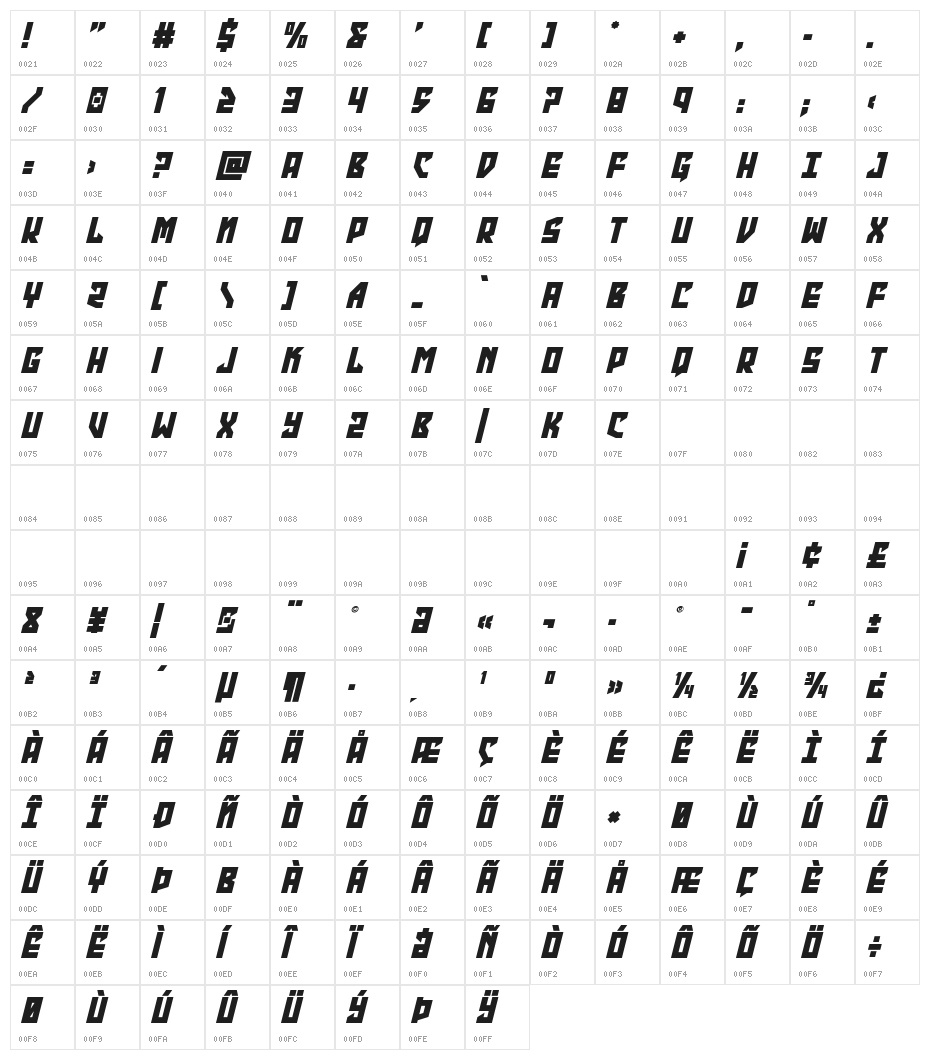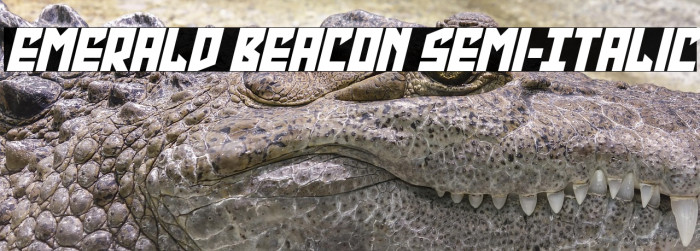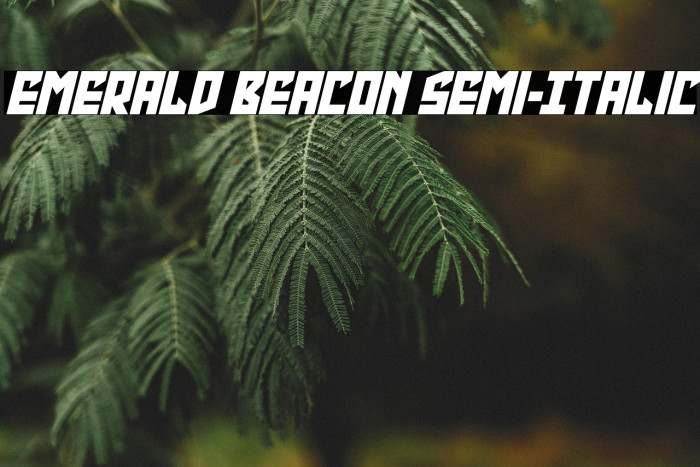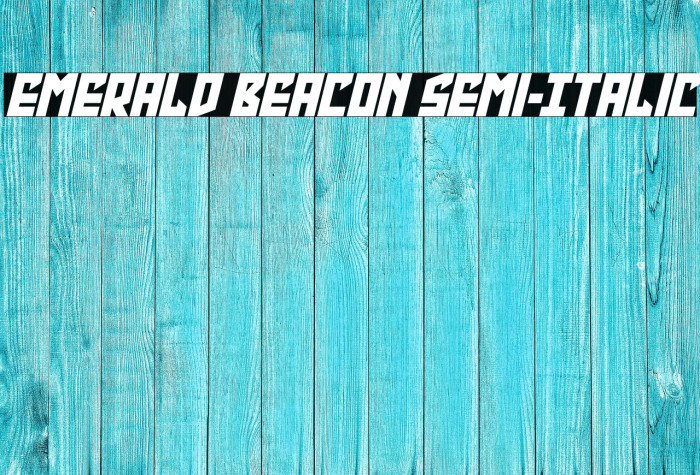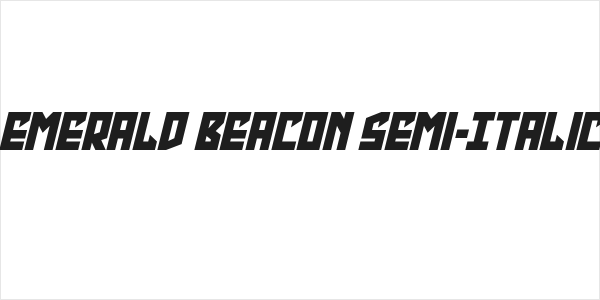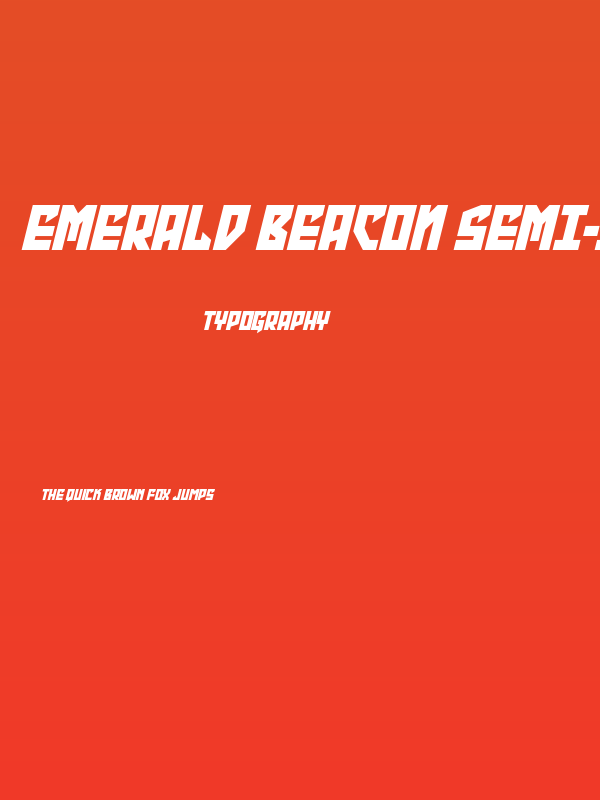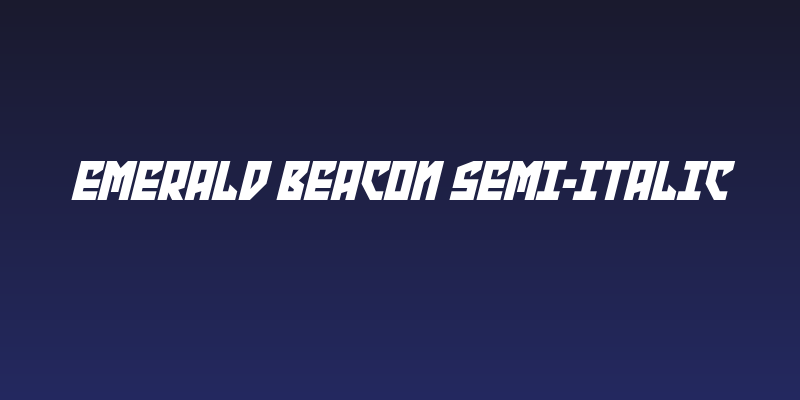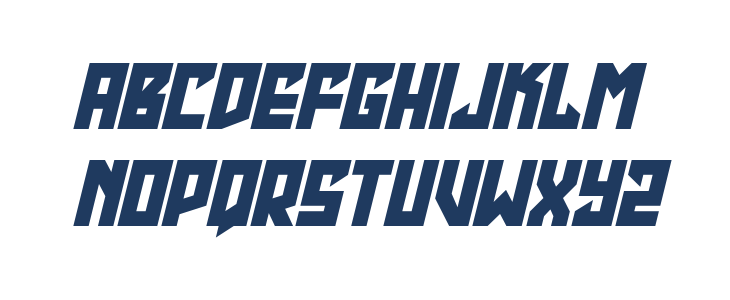
Emerald Beacon Semi-Italic Font
Emerald Beacon Semi-Italic Description
This font features a bold and dynamic design with sharp, angular edges that give it a futuristic and energetic appearance. The letters are slightly italicized, adding a sense of motion and speed. The uppercase and lowercase characters maintain a consistent style, with each letter exhibiting a unique geometric flair. Numbers and special characters are crafted with the same boldness and angularity, ensuring a cohesive look across all glyphs. The font's strong presence makes it ideal for attention-grabbing headlines and impactful designs.
| Proposed Projects | Ideal for sports branding, video game titles, sci-fi posters, and dynamic advertising campaigns. |